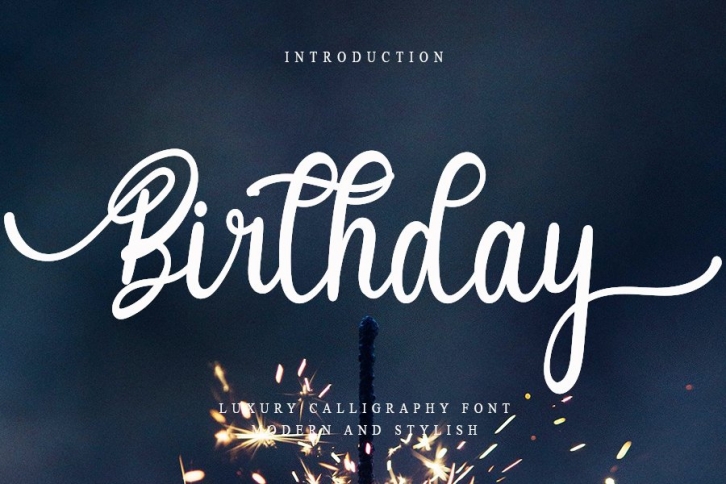
Birthday is a great font that was designed by FreshType INK. Imagine the amount of combinations you can create using this font! The archive is 21.11 MB and it was released on November 11, 2021. Birthday looks beautiful on wedding invitations, greeting cards, logos, posters, labels, t-shirt designs, logos, business cards and is perfect for use in ink or watercolor works, fashion, magazines, packaging and food menus, children's books and more!